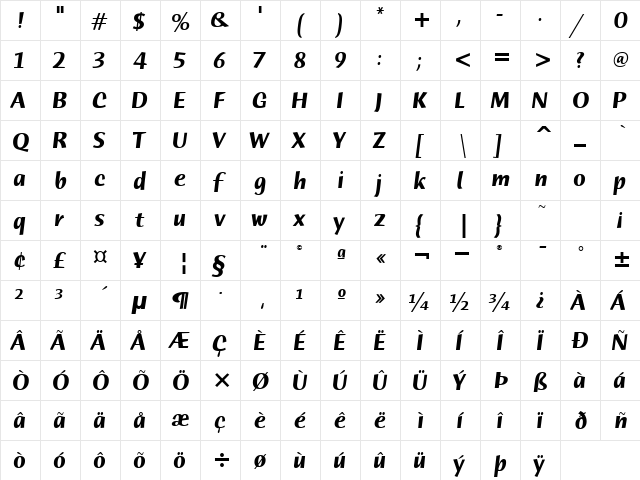
Humana Sans ITC TT BoldItalic
Design Context for Humana Sans ITC TT Typeface
Humana Sans ITC TT is a composed and adaptable typeface that performs quietly and consistently across a wide range of design contexts. Its italic angle brings a sense of urgency and motion to the letterforms. Its bold stroke weight gives it real presence on the page.
Pro Tip: Use Humana Sans ITC TT for emphasis, pull quotes, and subheadings where its slanted energy can add rhythm to the layout.